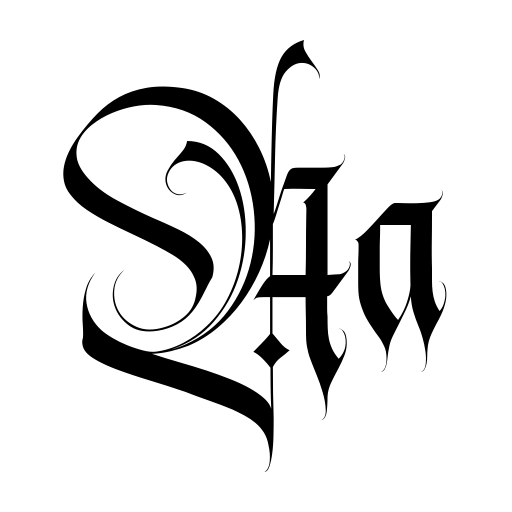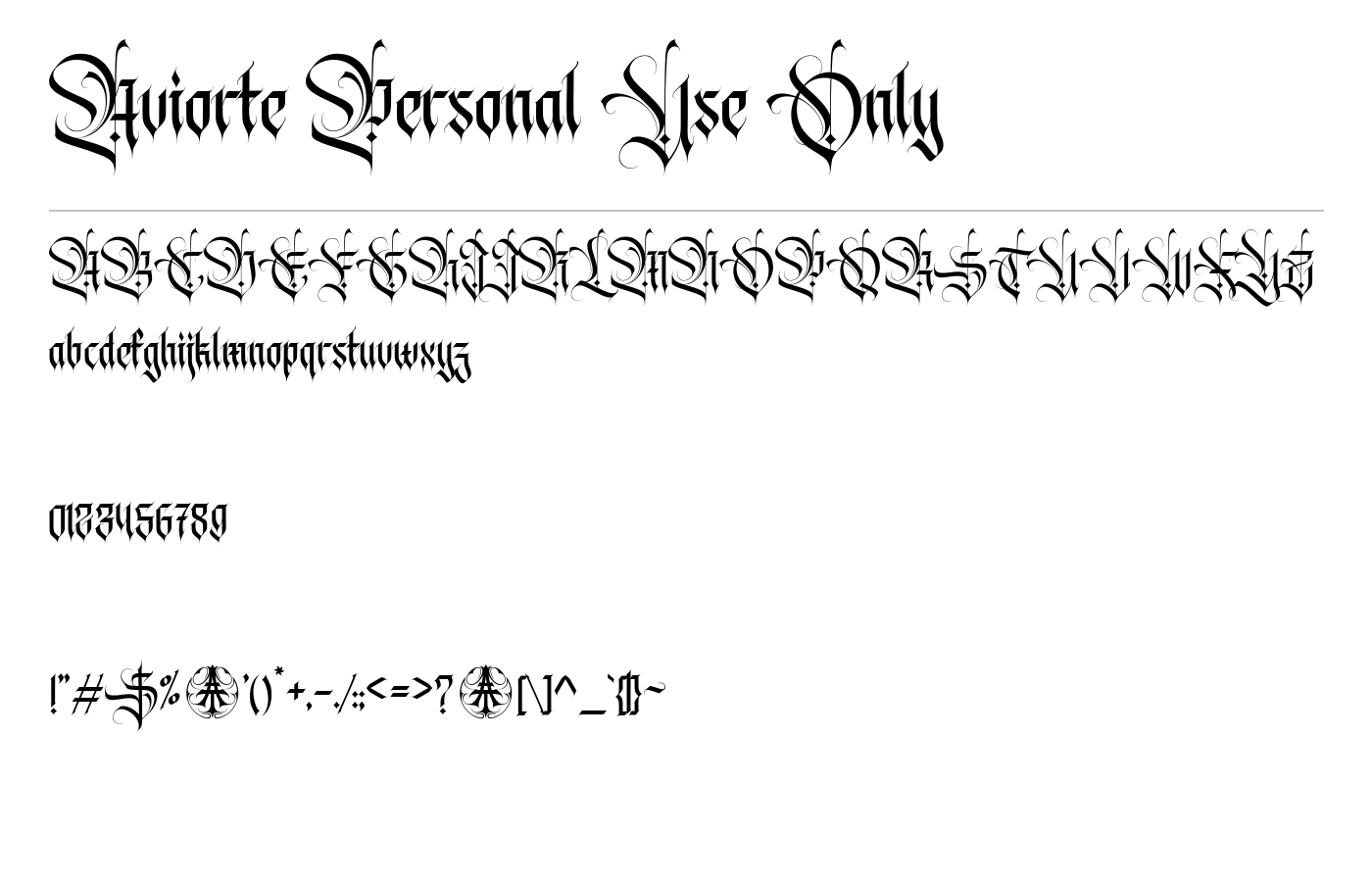
Aviorte Personal Use Only is a decorative blackletter font with a strong Gothic influence, featuring sharp, dramatic strokes and intricate details that give it an old-world, medieval feel. Its tall, narrow letterforms with high contrast and ornamental accents make it ideal for designs seeking a historic or darkly elegant atmosphere, such as posters, logos, or themed event branding. This font shines in display settings where its unique, stylized character can be appreciated rather than in body text.
Aviorte Personal Use Only Font
About Aviorte Personal Use Only Font